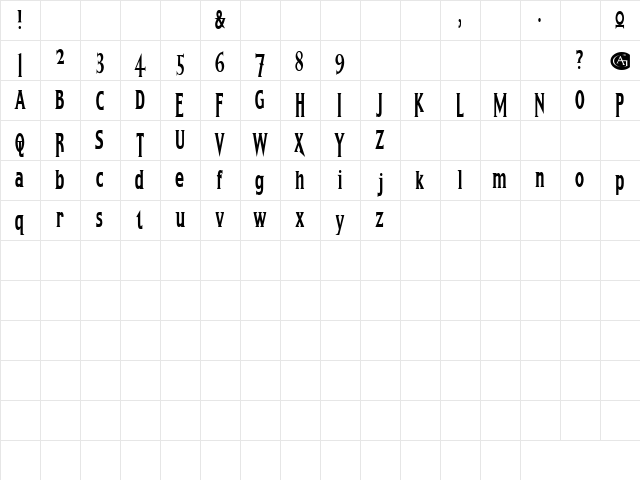
NaturalDark Regular
Design Context for NaturalDark Typeface
NaturalDark offers clean, dependable letterforms without strong stylistic allegiance, making it a practical choice for designers who need flexibility.